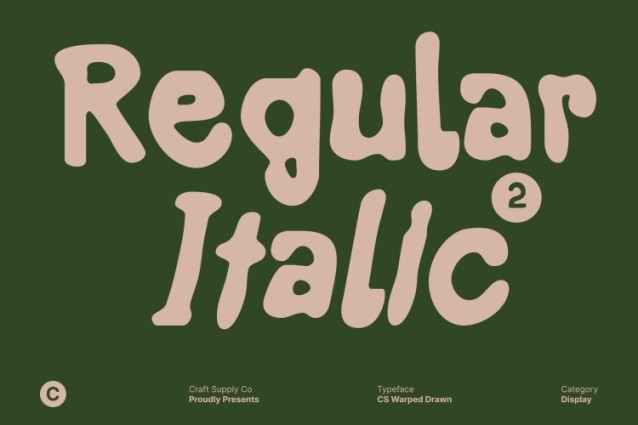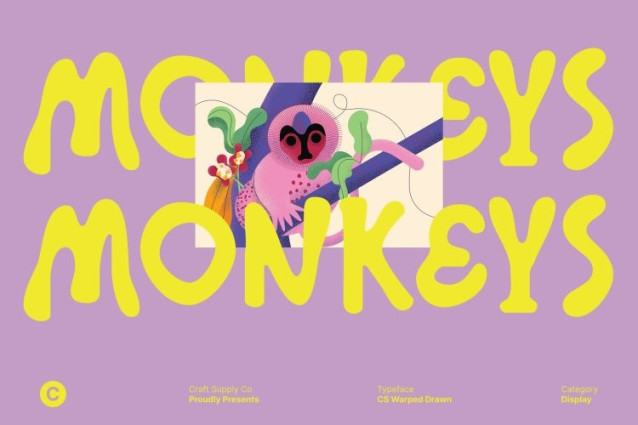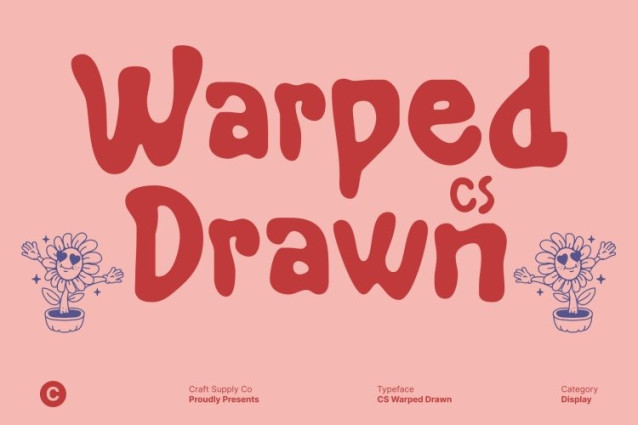
CS Warped Drawn Font
CS Warped Drawn Font This is a bold display font defined by thick strokes, etched details, and playful hand-drawn letterforms. Its quirky and funky construction instantly brings a sense of fun and creativity, while the etched texture adds depth and visual interest. The combination of bold shapes and rough, artistic lines makes this font feel lively, expressive, and full of character.
Playful and Friendly for Children’s Designs
With its cheerful appearance and approachable shapes, this font is perfectly suited for children’s book covers, titles, and illustrations. The rounded, playful forms create a welcoming atmosphere that feels fun rather than intimidating, helping designs connect easily with young audiences.
Perfect for Youth-Oriented and Creative Layouts
Beyond children’s media, this font a works beautifully in youth-oriented branding, posters, packaging, and event graphics. The bold etched strokes and handmade texture give designs a dynamic, youthful vibe that feels fresh and engaging. It’s an excellent choice for brands or projects that want to appear fun, casual, and full of personality.
Expressive, Fun, and Full of Character
This font stands out through its unique blend of bold structure and hand-drawn texture. It brings humor, warmth, and creative energy to any layout, making it ideal for playful branding, whimsical visuals, and imaginative storytelling. When a design needs to feel lively, friendly, and visually memorable, delivers with confidence.